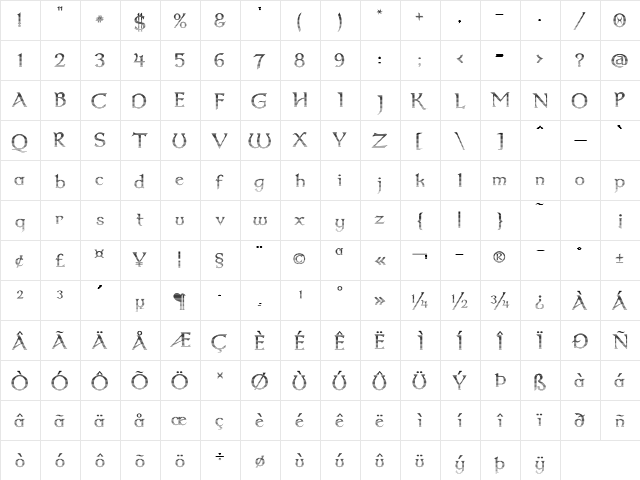
Dumbledor 2 Cut Up Regular Font Preview
Dumbledor 2 Cut Up Regular
Design Context for Dumbledor 2 Cut Up Typeface
Dumbledor 2 Cut Up takes a measured approach to typography — its balanced proportions and neutral character make it a reliable workhorse for both digital and print work.